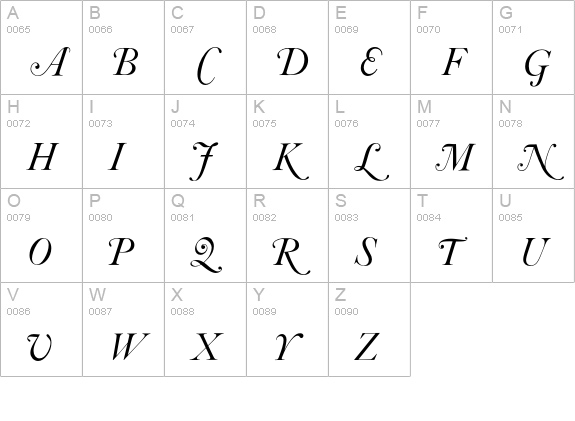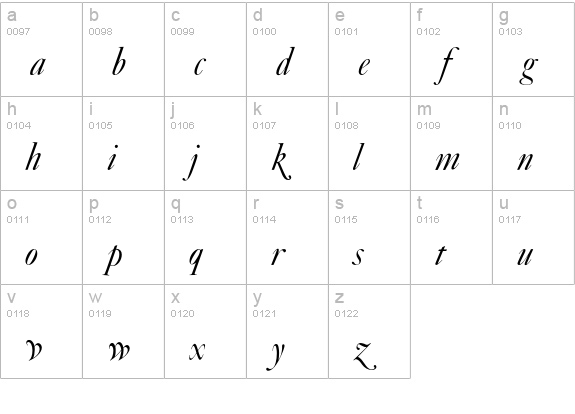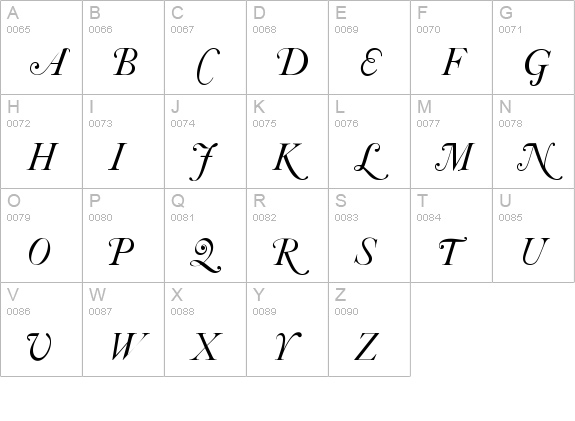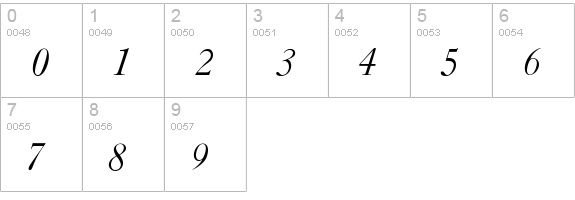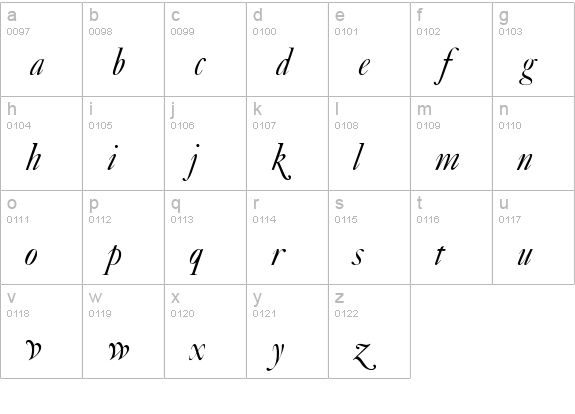
CaslonC437-ItalicSmallCaps Font Details
CaslonC437-ItalicSmallCaps is a sophisticated and elegant font style that exudes a classic charm and timeless appeal. Its slender and slanted design adds a touch of refinement to any text, making it perfect for projects that require a touch of sophistication. The small caps feature adds a unique flair to the text, allowing for a stylish and eye-catching presentation. This font is versatile and well-suited for a wide range of design projects, from invitations and wedding stationery to branding and packaging. Its italicized style gives a sense of movement and fluidity, making it ideal for conveying a sense of elegance and grace. Best of all, CaslonC437-ItalicSmallCaps is available for free download at FontsMarket.com, making it accessible to designers and creatives looking to elevate their projects with a touch of timeless style. Embrace the beauty and elegance of this font and enhance your designs with its sophisticated appeal.